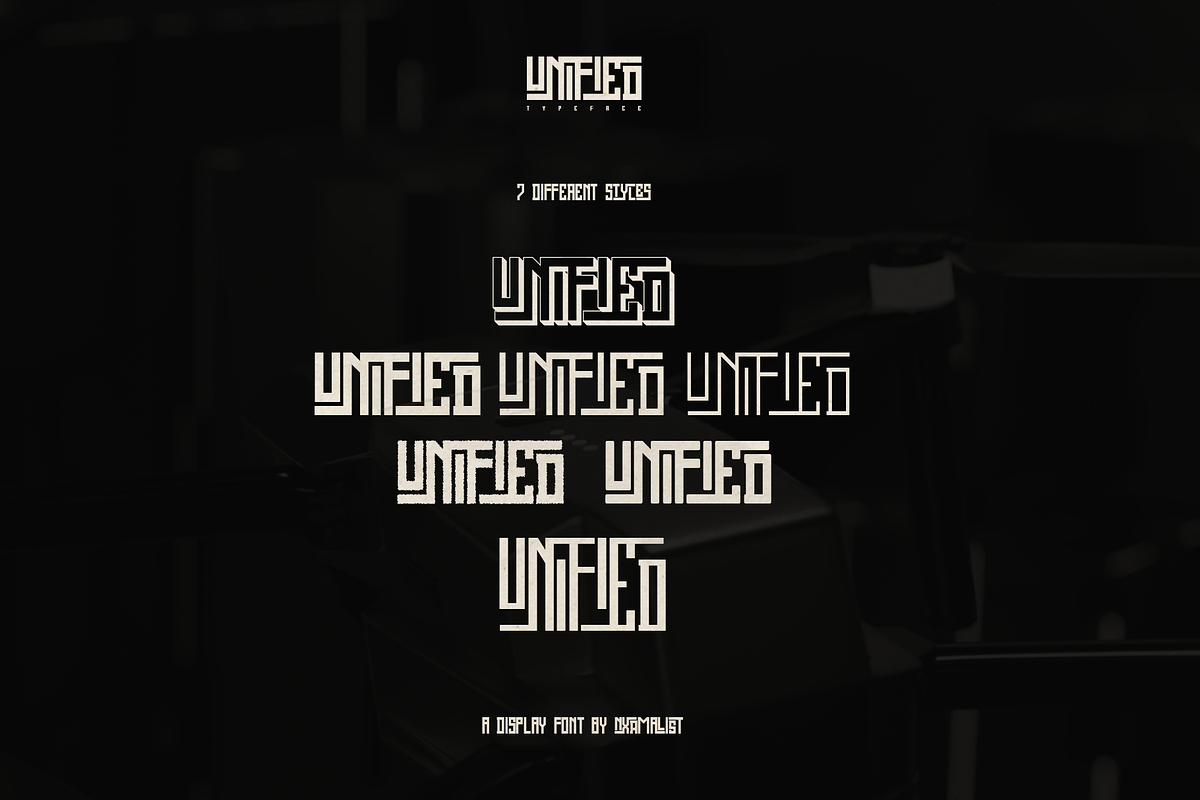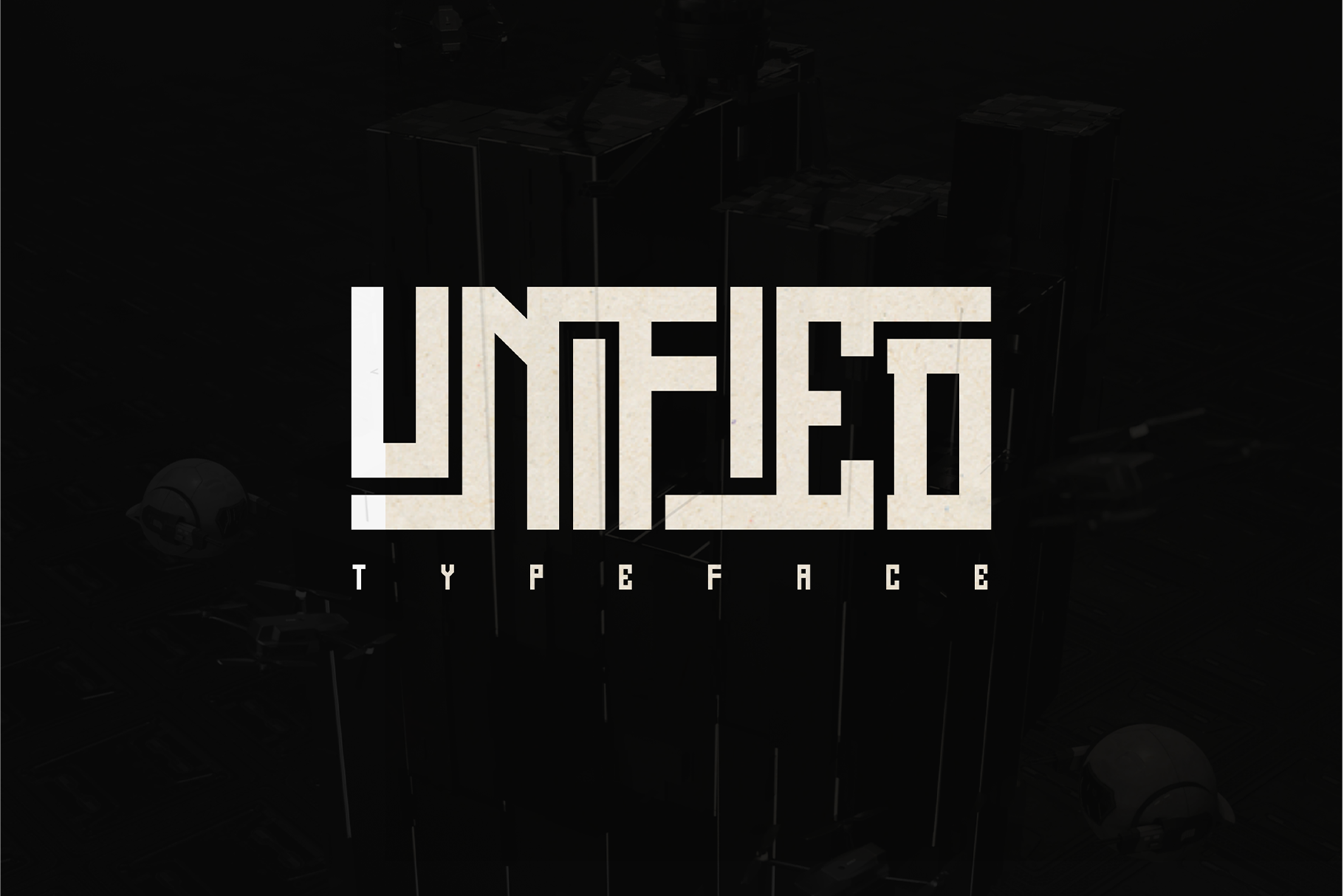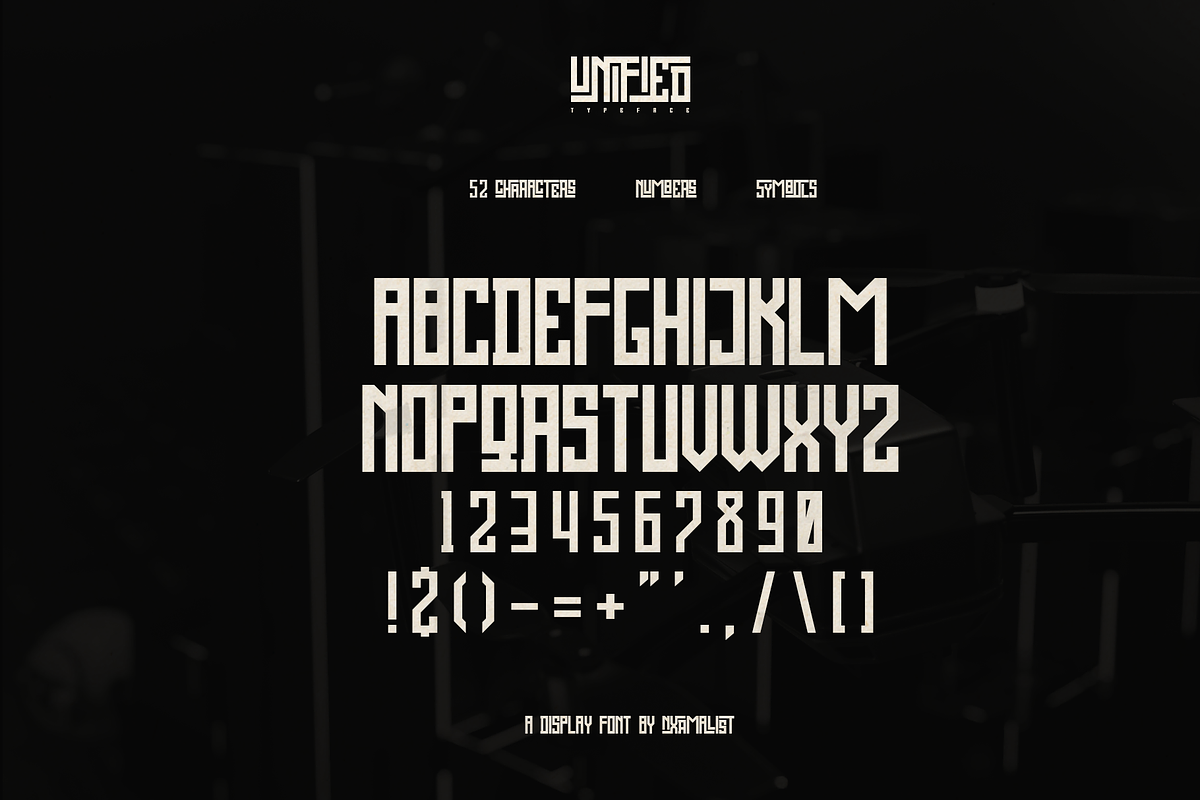
UNIFIED TYPEFACE // FONT
This is the fourth typeface I made. This font idea came from the creations of the designers who made their custom typefaces.
For me, this font is special. because this font has 7 glyphs in each character which makes it easy for users to change the font at will. users will have no more trouble customizing the font.
In addition, there are 7 variations of fonts that you can choose from.